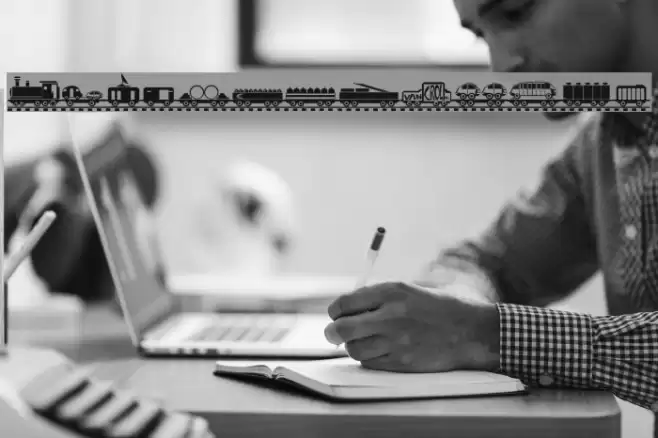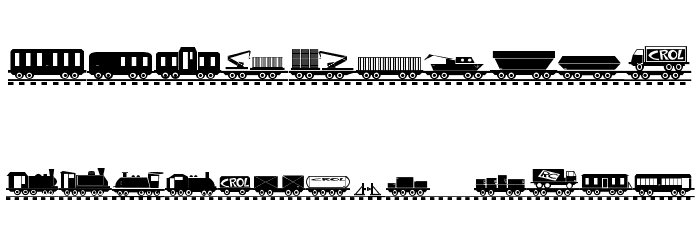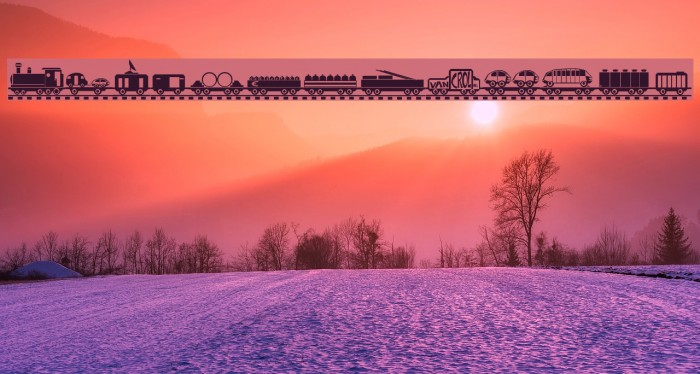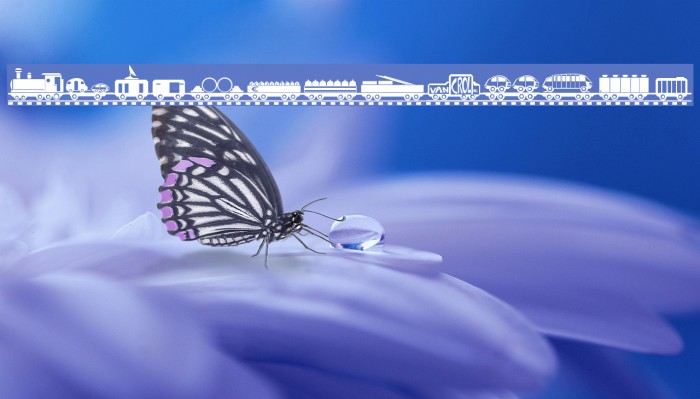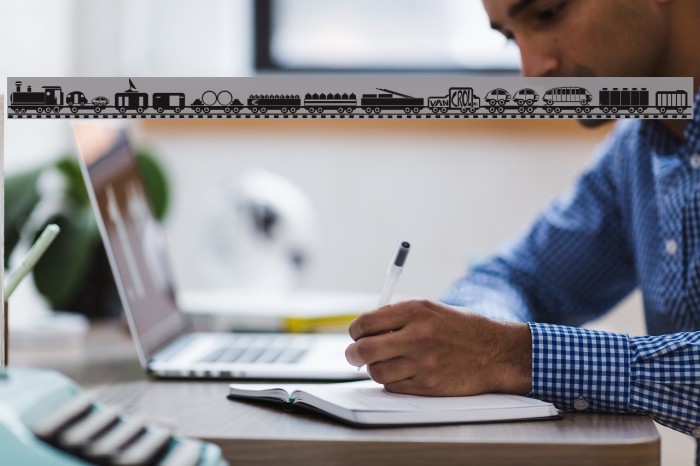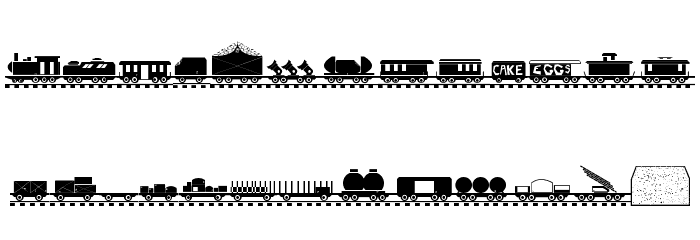
TREIN Font
TREIN Description
A decorative font composed of detailed train and railway-themed illustrations forming each character, with each letter or symbol represented by a unique train car or locomotive design. The style is playful and illustrative, with high visual complexity and strong thematic cohesion.
A decorative, train-themed illustrative font from Cartoon fonts.
- Proposed Projects: Children’s books, themed posters, event invitations, educational materials, playful branding.
- Overall Style: Decorative, Playful, Thematic
- Use Case: Headlines, Posters, Themed Graphics